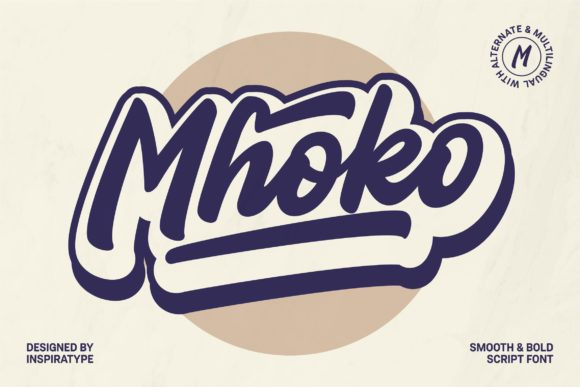
Mhoko Font
Mhoko feels equally charming and elegant. It looks stunning on wedding invitations, thank you cards, quotes, greeting cards, logos, business cards and every other design which needs a handwritten touch.